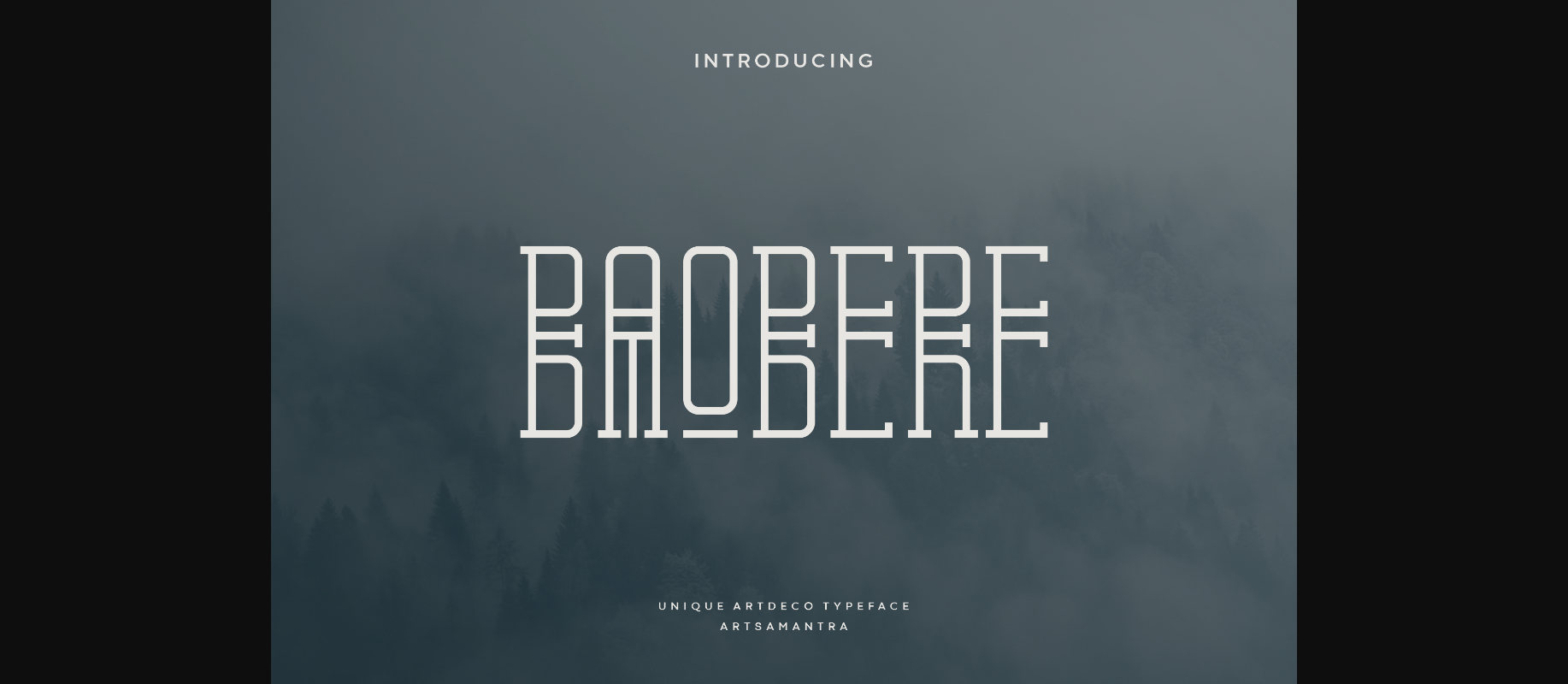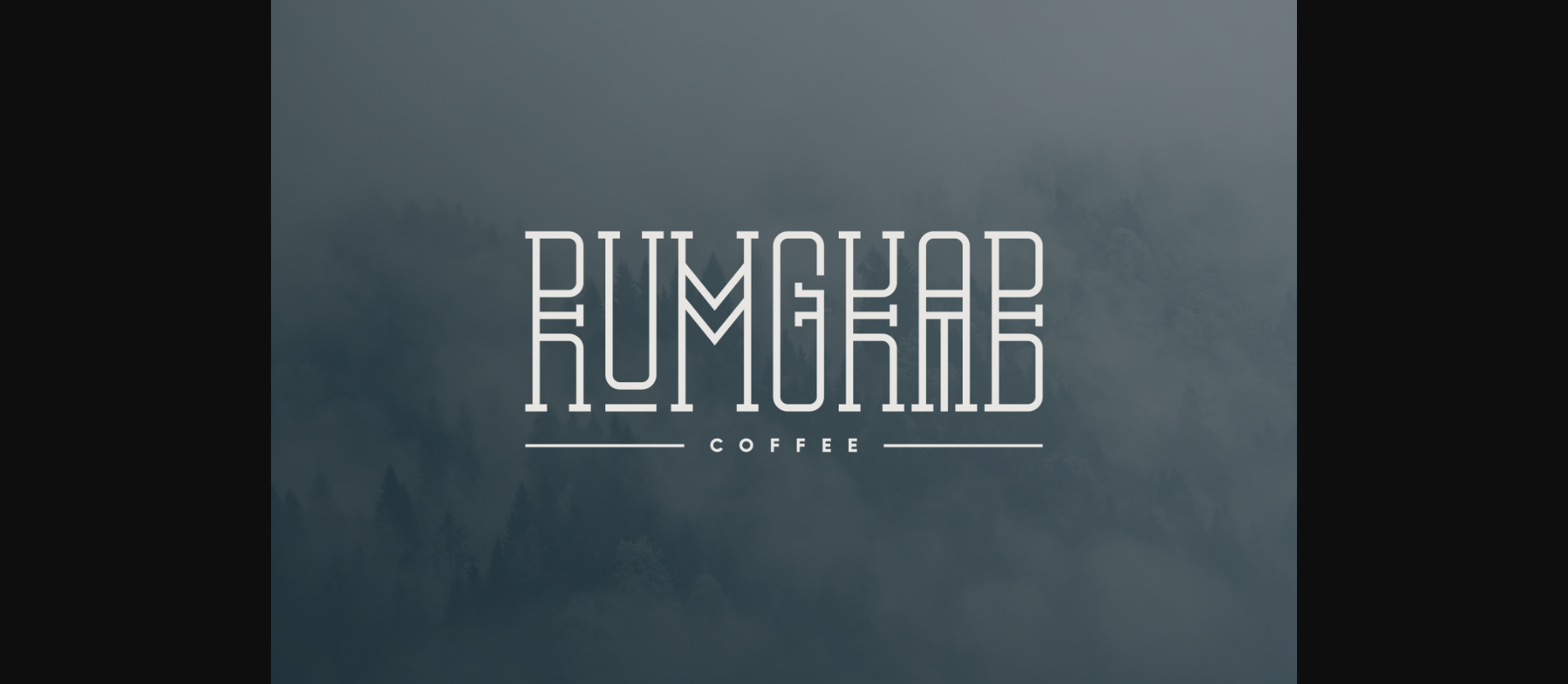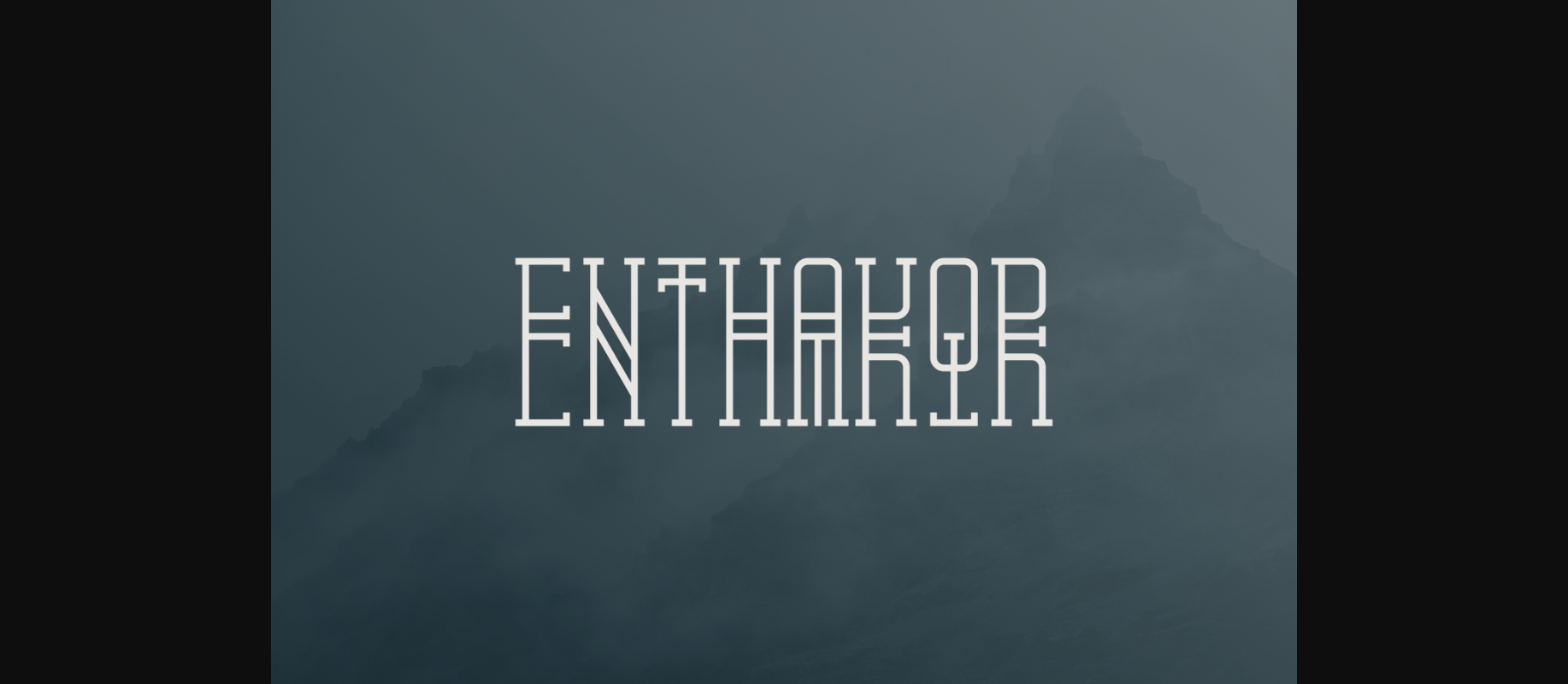
Baobere Font
About Baobere Font
Baobere is a decorative font inspired by native and nordic tribes, its minimalist and feminine shape makes it look elegant. This font would be perfect for logo, brochure, magazine or any design that needs a unique touch. Baobere gives a new feel to your work, and of course it will make your designs really stand out.